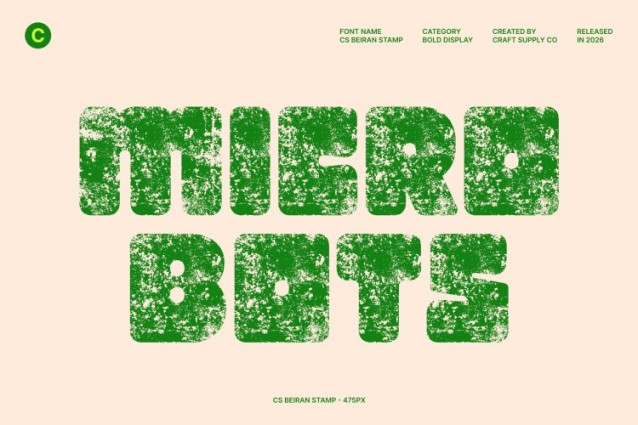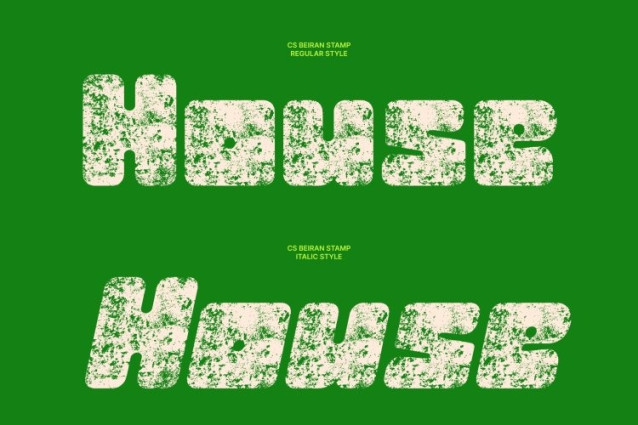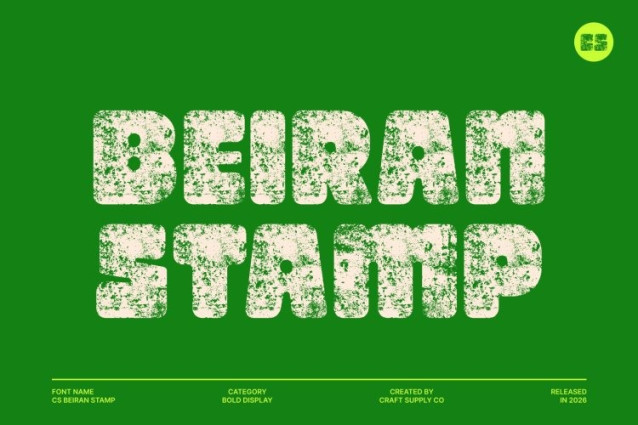
CS Beiran Stamp Font
CS Beiran Stamp Font This is a bold, chunky display font designed to create an instant impression, now enriched with a distinctive stamp texture. Its strong, blocky letterforms radiate confidence and modern appeal, while the stamped finish adds a vintage, print-worn character that enhances its playful retro spirit.
Thick Strokes with Raw Visual Impact
Built with thick strokes and solid construction, this font ensures powerful legibility and commanding presence. The added texture prevents the bold shapes from feeling flat, introducing depth and authenticity that make headlines, posters, and branding visuals feel more dynamic and expressive.
Retro Playfulness Meets Modern Edge
Balancing geometric precision with quirky charm, this font blends nostalgic flair with contemporary energy. The stamp effect reinforces its retro twist, evoking classic print aesthetics while maintaining a clean, modern structure that feels fresh and versatile.
Perfect for Eye-Catching Creative Projects
From product packaging and branding to social media graphics, merchandise, and editorial layouts, this font brings bold charm and lively personality to any design. Its fusion of chunky forms and vintage stamp texture makes it ideal for projects that want to feel fun, confident, and stylishly memorable.